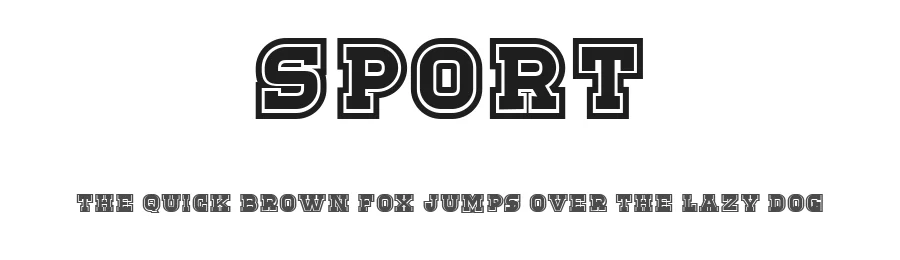
About Illinois Block Font
Illinois Block is a decorative font designed by Daniel Heikkinen. It includes 52 glyphs, a regular weight, TTF (TrueType) format, and 89 languages. Illinois Block is free to download; check the license details on this page before commercial use. Decorative fonts like Illinois Block work best for logos, posters, packaging, and standout headlines.
Illinois Block Font is a decorative font that shines as a display or heading face. Pair it with a clean sans-serif or serif font for body text β the contrast creates a clear hierarchy while the two styles stay balanced and easy to read.